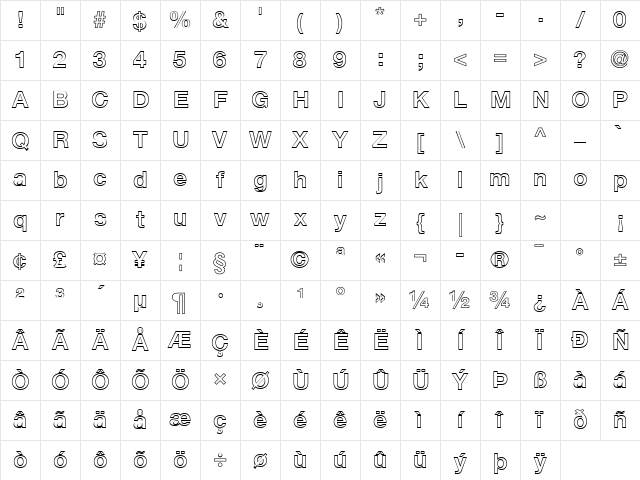
Complete Helvetica Neue LT Com 75 Bold Outline glyph index. Displaying only characters natively supported by Helvetica Neue LT Com 75 Bold Outline font.
Helvetica Neue LT Com is built around its visual character rather than neutral utility - its distinctive forms are designed to make an impression at display sizes. Its bold stroke weight gives it real presence on the page.
Font Pairing: Pair with a clean neutral sans-serif for body copy to let Helvetica Neue LT Com's character lead without overwhelming the composition.
Pro Tip: Use Helvetica Neue LT Com exclusively at display sizes - it was designed to be seen, not read at length. Let a neutral companion handle body copy.